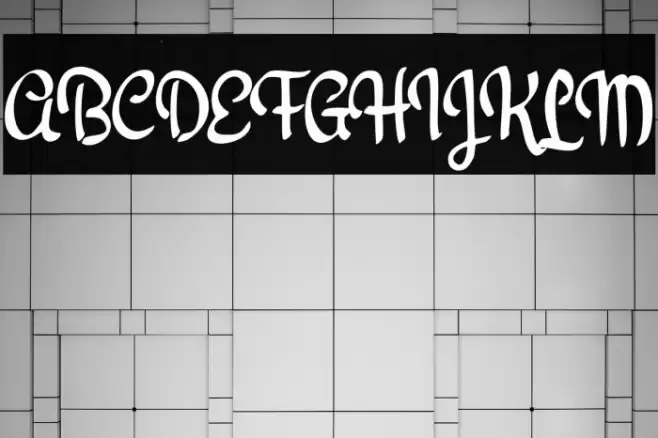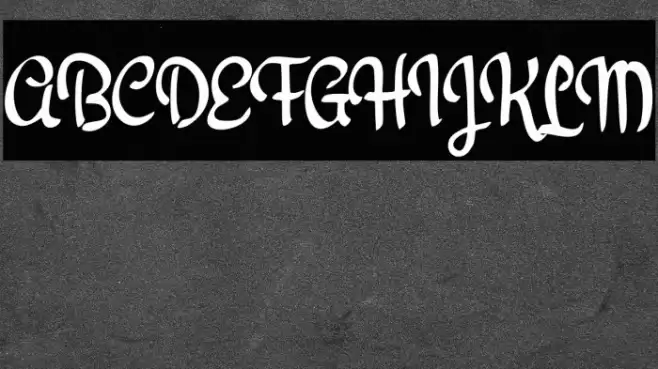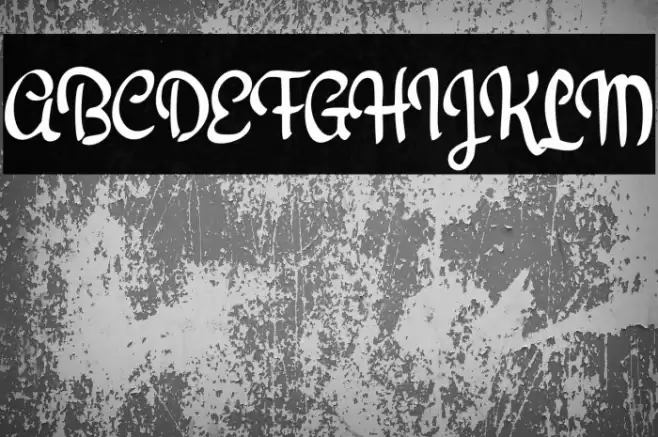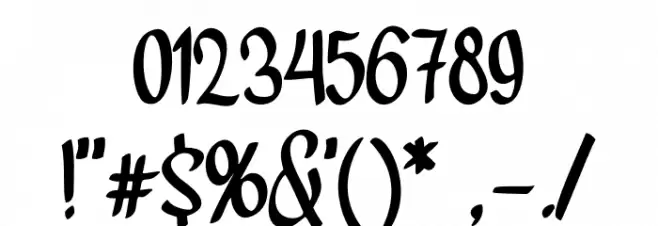
KoalaScript Font
KoalaScript Description
This font features a playful and energetic script style with a bold presence. The characters are crafted with a flowing, cursive design that gives a sense of movement and liveliness. The uppercase letters are tall and slightly narrow, while the lowercase letters maintain a consistent flow with rounded edges and smooth curves. The numbers and special characters are designed to match the overall style, ensuring a cohesive look. This font's unique character shapes and dynamic strokes make it stand out, providing a modern yet whimsical feel.
A bold, playful script font with flowing, cursive characters from Uncategorized fonts.
- Font: KoalaScript
- Proposed Projects: Ideal for creative projects such as invitations, greeting cards, branding, and playful logos.
- Overall Style: Modern, Decorative
- Use Case: Logos, Headlines, Invitations